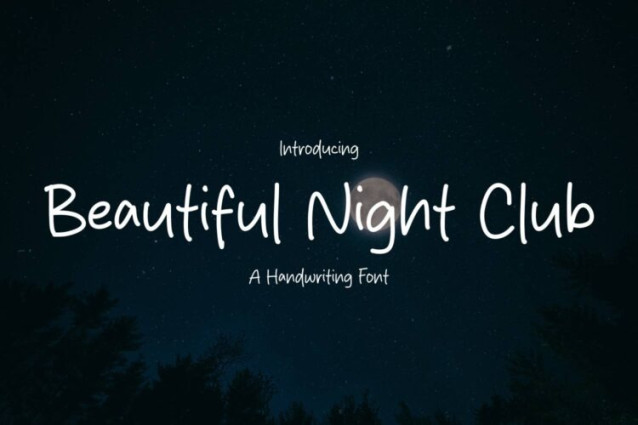
Beautiful Night Club Font
Beautiful Night Club Font is a simple and friendly handwritten font. Its natural and unique style makes it incredibly fitting to a large pool of designs. The only limit is your imagination!